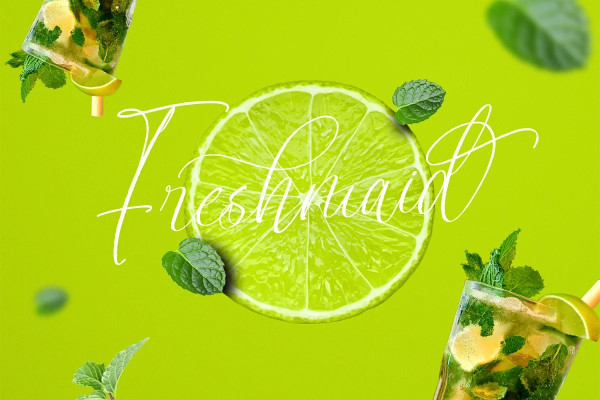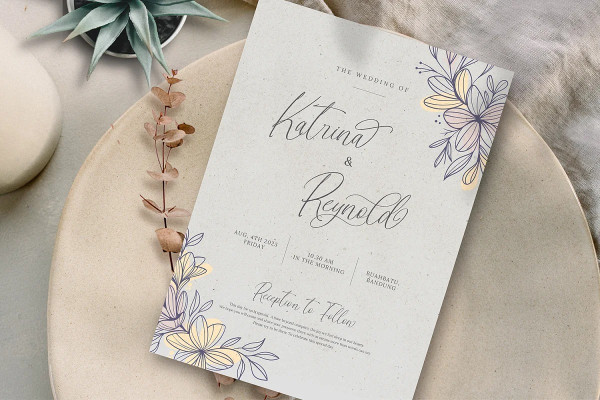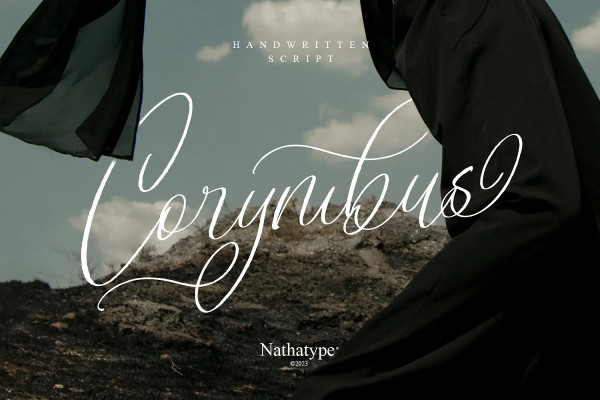
Corymbus Font
Corymbus Font, a script font that effortlessly captures the essence of human handwriting. The interplay between thick and thin lines creates a visual feast for the eyes, showcasing the intricacies of each character. The whimsical irregularity mirrors the fluidity of genuine handwriting. The distinctive hallmark of Corymbus lies in its swinging endings – each letter playfully extends beyond its baseline, creating a sense of rhythm and movement. On the other hand, the breathing room enhances legibility and bestows a sophisticated openness upon the text.